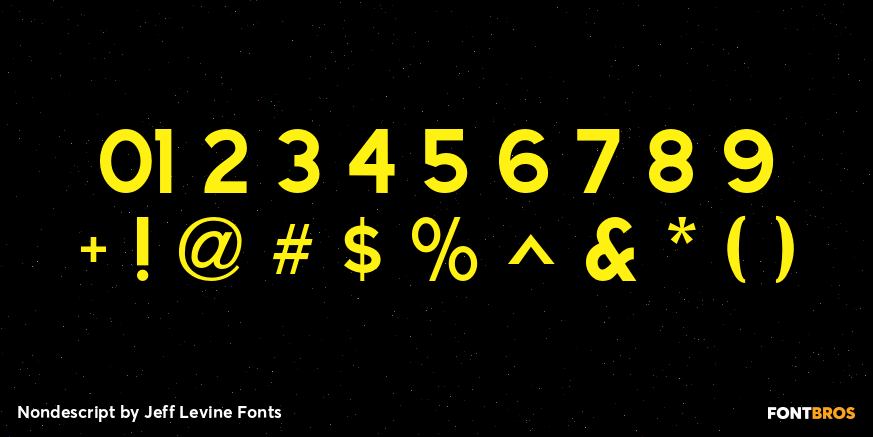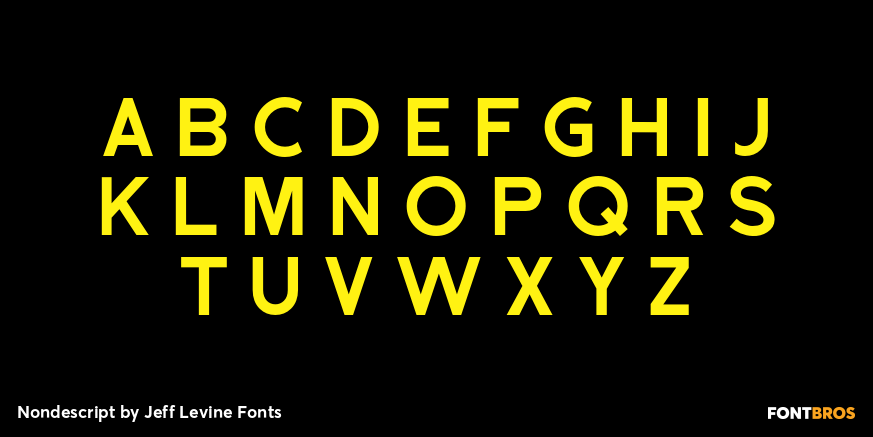
Nondescript
One good pun is worth a simple description… Nondescript JNL… 'Non' - not. 'de' - of, in Spanish. script - a cursive (handwritten) letter form.
So… while nondescript generally means lacking any defining description, in this case it also means "not of a script"… which is precisely what a typeface such as this one is.